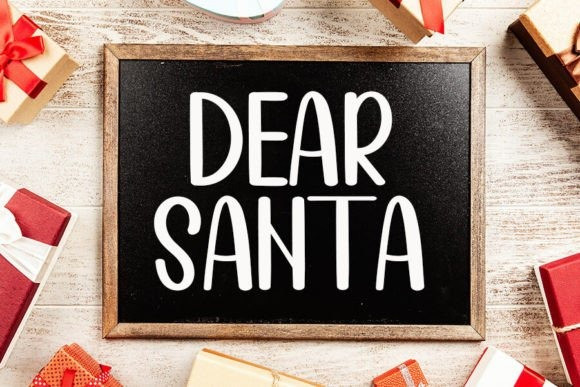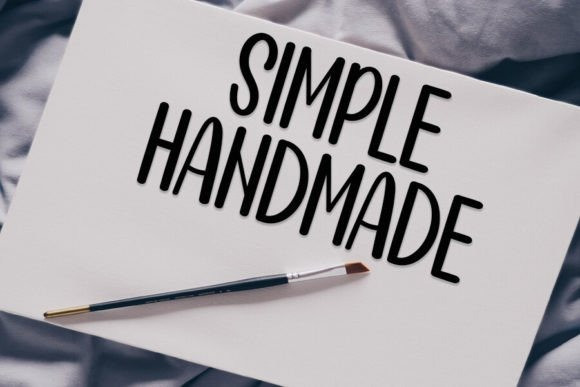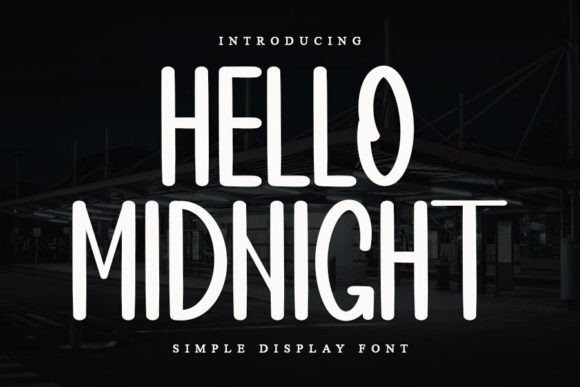
Hello Midnight Font
Hello Midnight Font is a stylish and incredibly elegant display font. It looks stunning on wedding invitations, thank you cards, quotes, greeting cards, logos, business cards, and every other design that needs a handwritten touch.